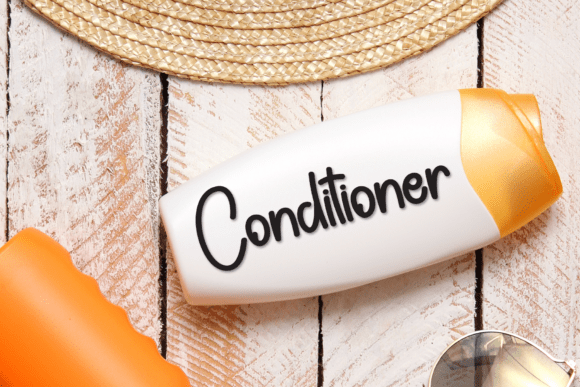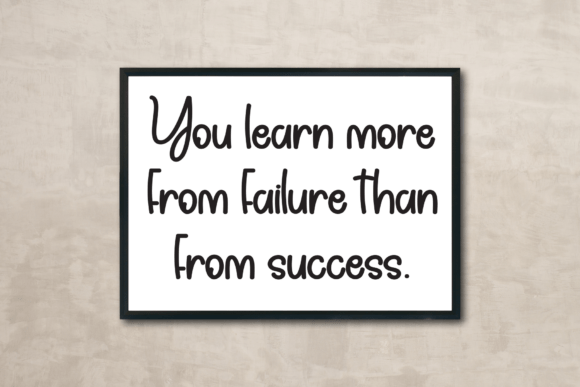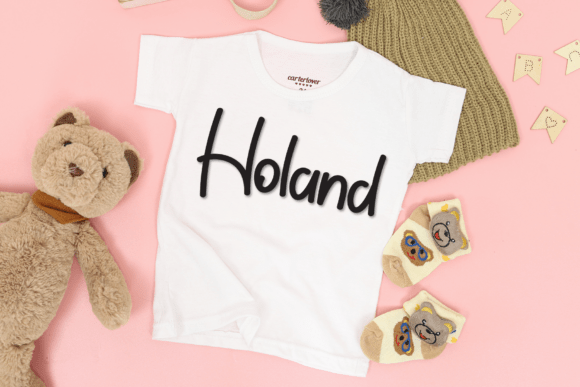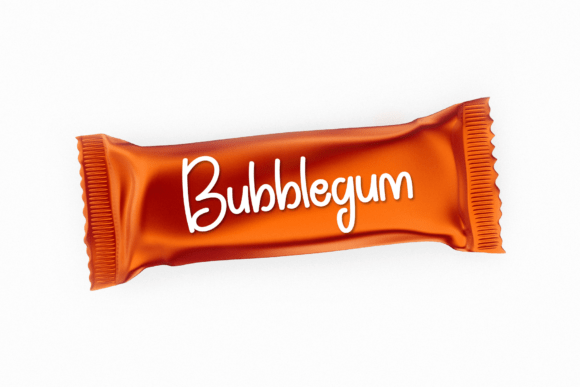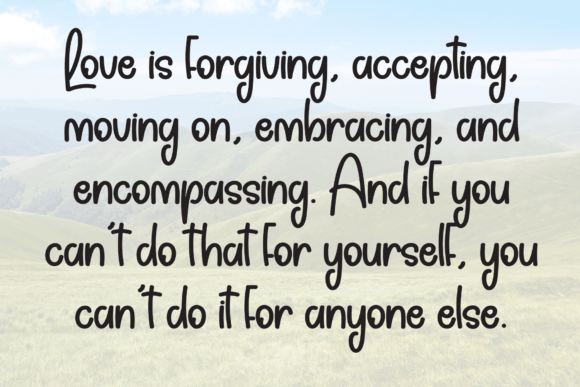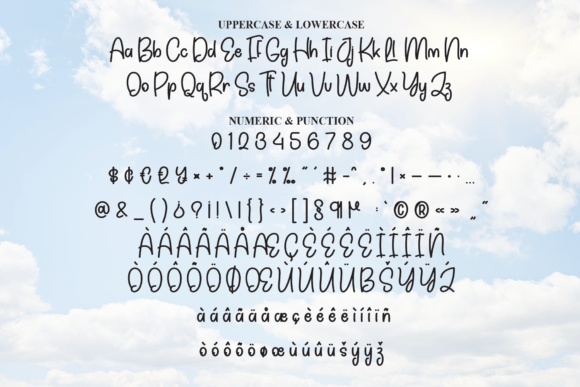
Unlocking the Power of the Perfect Font
Have you ever been scrolling through your social media feeds, and suddenly, a beautifully designed post catches your eye? Maybe it’s a stunning graphic, an eye-catching headline, or a simple yet effective logo. Whatever it is, it’s likely due to the perfect combination of colors, shapes, and – most importantly – fonts. As a designer, you know how crucial the right font can be in making your project shine. That’s where the Bright Saturday Font comes in – a game-changing display font that’s about to become your new go-to.
Bright Saturday Font is a casual and neat display font that combines simplicity with a friendly, approachable vibe. With its clean lines, balanced letterforms, and subtle rounded edges, it captures the essence of modern handwritten typography with a polished finish. Whether you’re working on branding, headlines, packaging, or digital content, this versatile font adds a warm and inviting touch to any design.
Bright Saturday Font Key Features
• Font Family: Bright Saturday
• Unique Characteristics: Bright Saturday font is known for its modern, elegant, and sophisticated design, featuring a unique blend of geometric and organic elements.
• Font Weight: Available in Regular and Bold weights
• Language Support: Supports multiple languages, including Latin, Cyrillic, and Greek alphabets
Bright Saturday Font Review
Overall, I think Bright Saturday is a beautiful, whimsical font that adds a touch of playfulness to any project. ✨ The flowing connections between letters and the subtle rounded edges give it a charming, handwritten feel. It’s perfect for creating eye-catching headings, titles, or even short passages of text.
• What I like: ✨
• The fluid, organic look that’s reminiscent of hand-drawn letters
• The versatility in using it for both headings and body text
• The fun, casual vibe it brings to any design
• What I’m not a fan of: ⚠️
• The font might be too whimsical for formal or corporate projects
• The letter spacing can be inconsistent at times, affecting readability
• The font family is relatively small, with limited customization options
In conclusion, Bright Saturday is a great choice for designers looking to add some personality to their projects. While it may not be suitable for every occasion, its unique charm and playful feel make it a great option for creative, informal, or social media designs. Overall, I’d give it 4 out of 5 stars.
The Bright Saturday font is ideal for:
• Creative projects, such as branding and marketing materials.
• Editorial content, such as articles and blog posts.
• Design projects, such as
Alternatives to Bright Saturday Font
Ostrich Sans is a modern sans-serif font with a clean and minimalist design. It’s ideal for use in digital products, branding, and editorials. Compared to Bright Saturday Font, Ostrich Sans is more geometric and has a more neutral tone, making it suitable for a wide range of applications.
Great Vibes is a modern script font with a casual and friendly feel. It’s perfect for use in invitations, posters, and advertising materials. Compared to Bright Saturday Font, Great Vibes is more cursive and has a more playful tone, making it ideal for creative and artistic projects.
Playfair Display is a luxurious serif font with a classic and elegant design. It’s ideal for use in high-end branding, packaging, and print materials. Compared to Bright Saturday Font, Playfair Display is more formal and has a more sophisticated tone, making it suitable for upscale and professional applications.
Merriweather is a classic serif font with a traditional and timeless design. It’s perfect for use in books, newspapers, and academic materials. Compared to Bright Saturday Font, Merriweather is more formal and has a more traditional tone, making it suitable for educational and informative content.